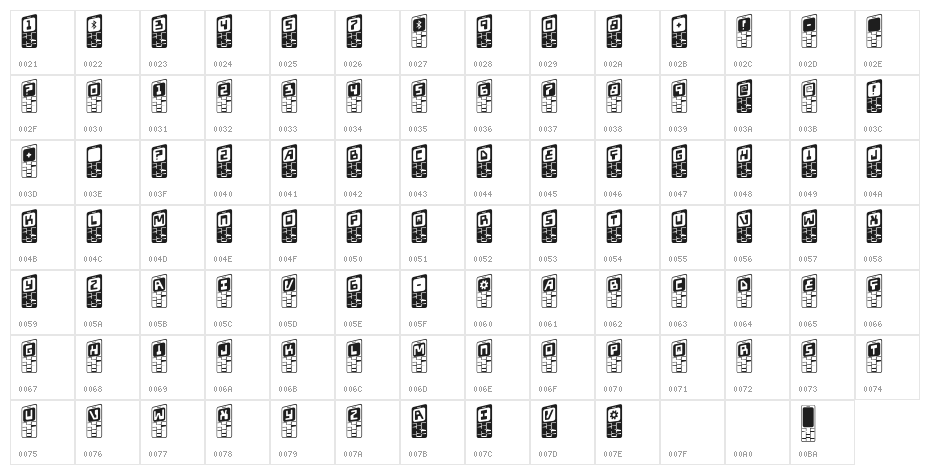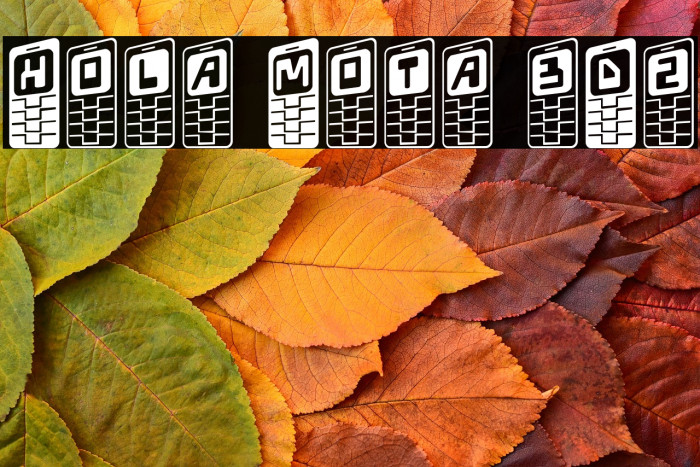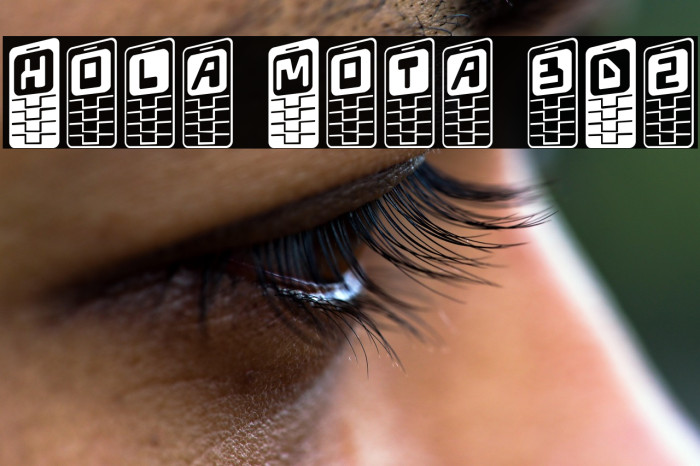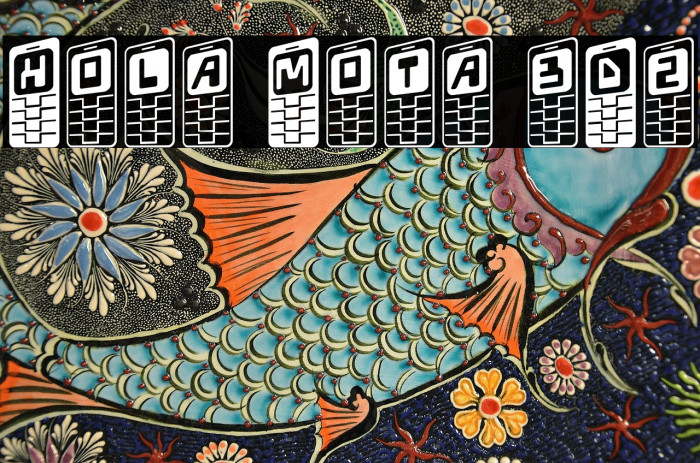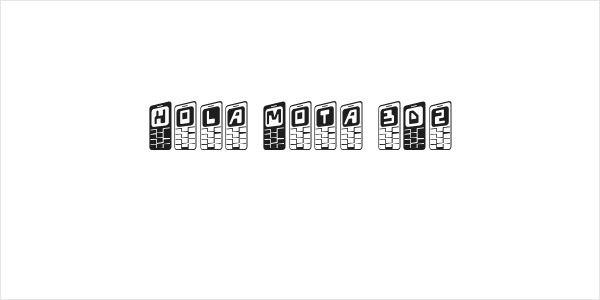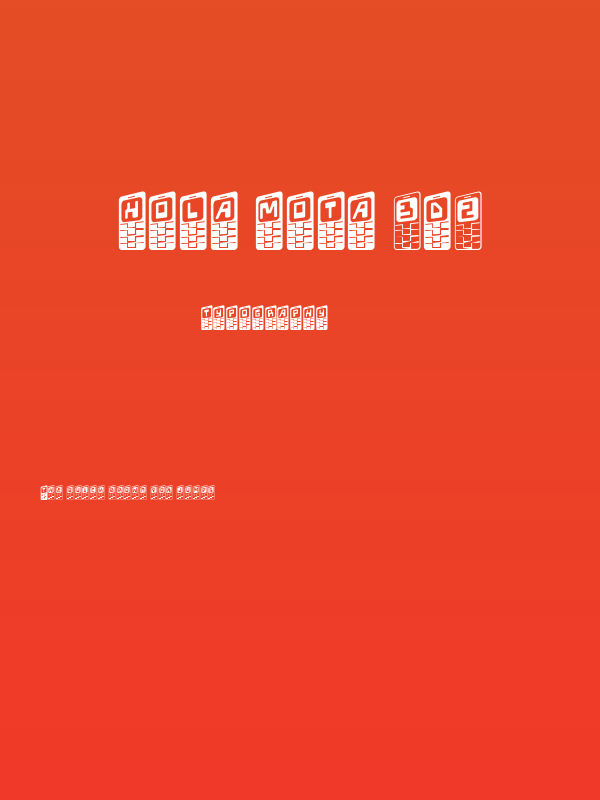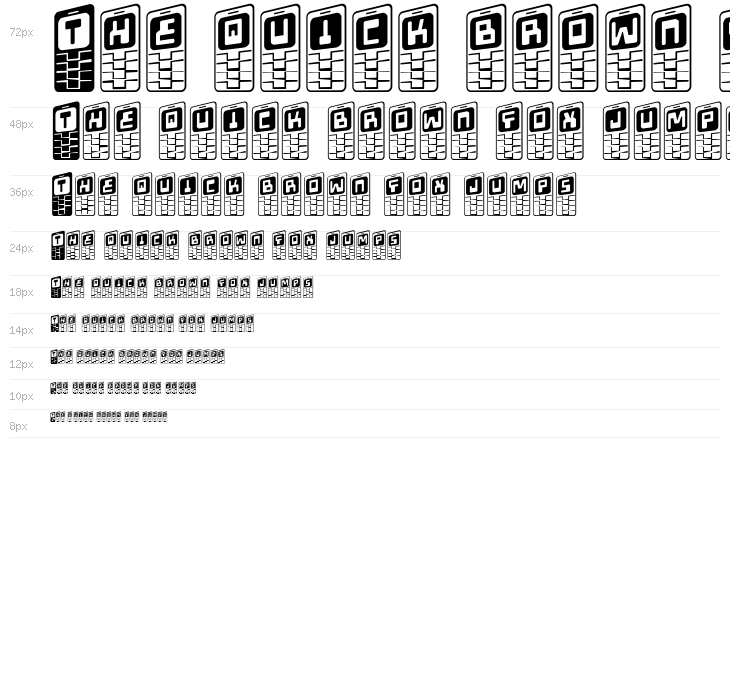
Hola Mota 3D2 Font
Hola Mota 3D2 Description
This font features a bold, three-dimensional style with each character enclosed in a rectangular, phone-like shape. The letters and numbers are designed with a blocky, digital aesthetic, reminiscent of old-school mobile phone keypads. The characters are outlined with a thick border, enhancing the 3D effect and giving a sense of depth. The font is highly decorative, making it suitable for projects that require a retro or tech-inspired look. Its unique design captures attention and adds a playful, nostalgic touch to any visual content.
| Overall Style | Retro, Tech-inspired, Playful |
| Use Case | Logos, Posters, Headlines |
| Proposed Projects | Ideal for retro-themed designs, tech-related branding, video game graphics, and playful posters. |